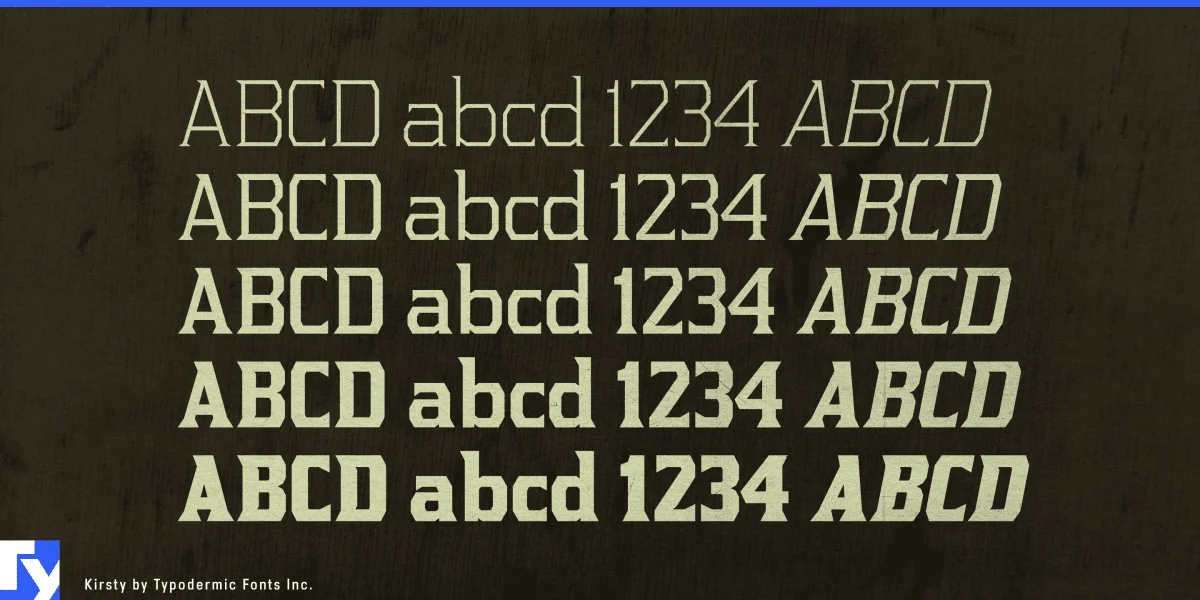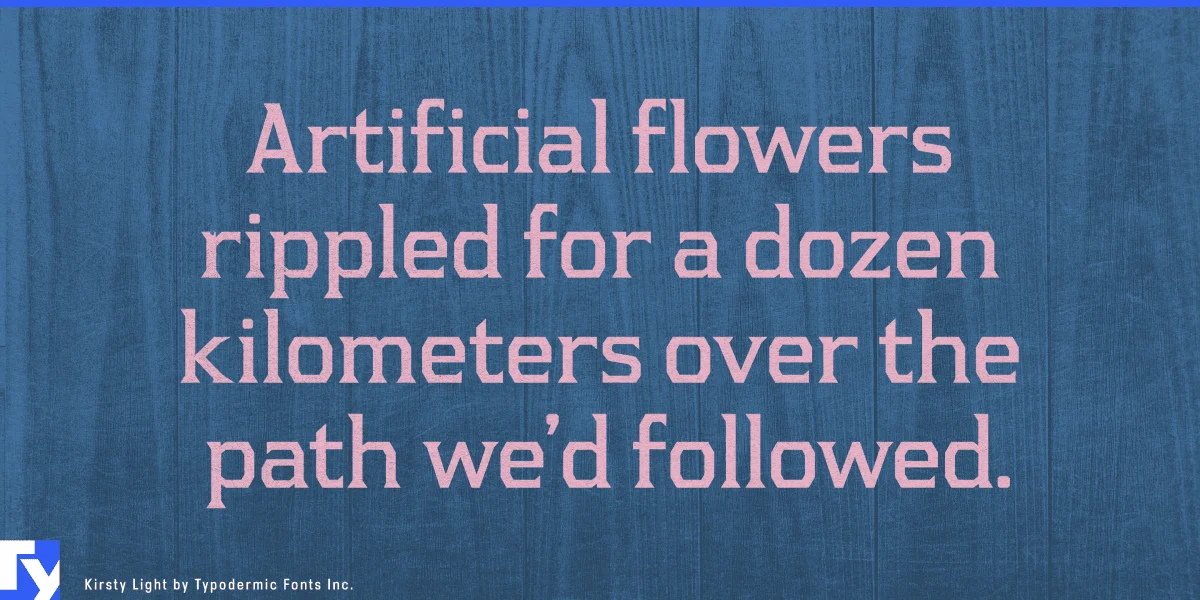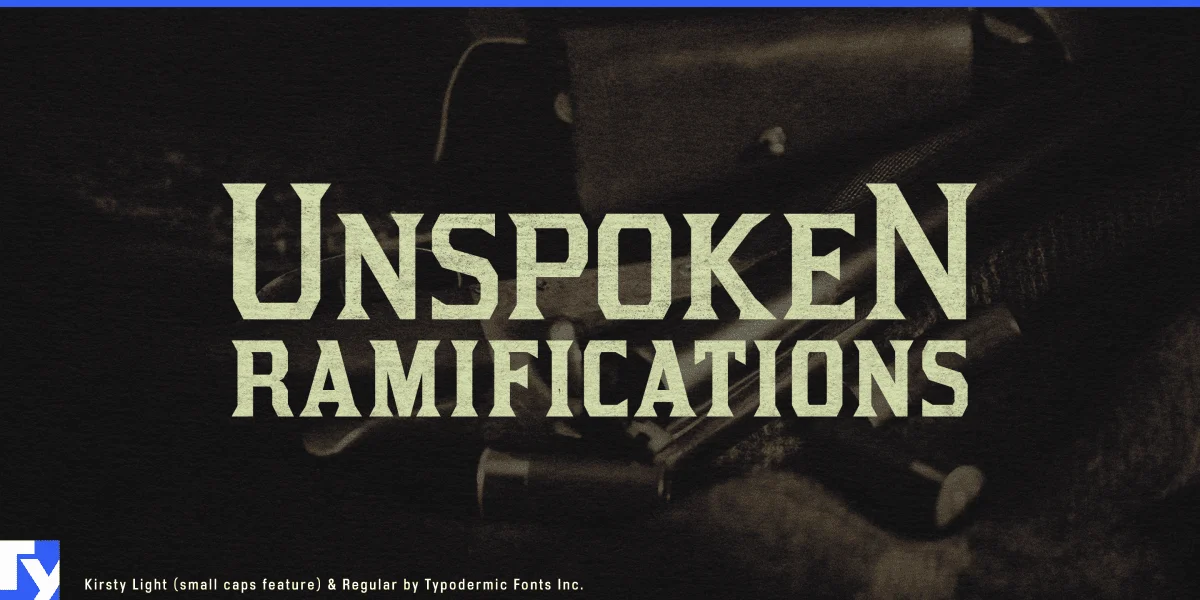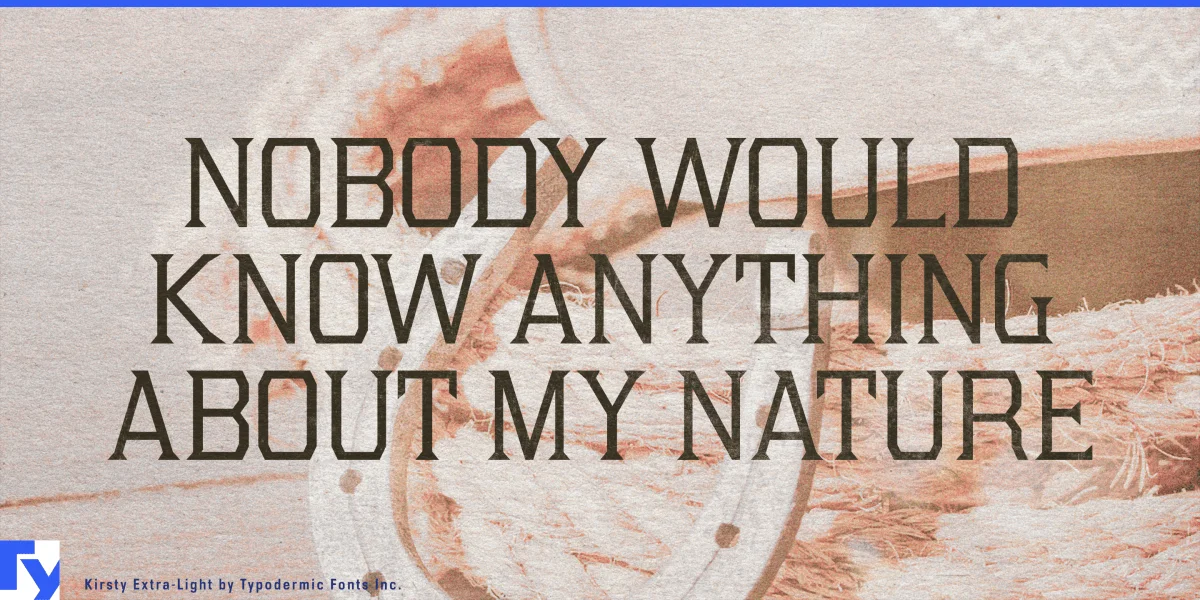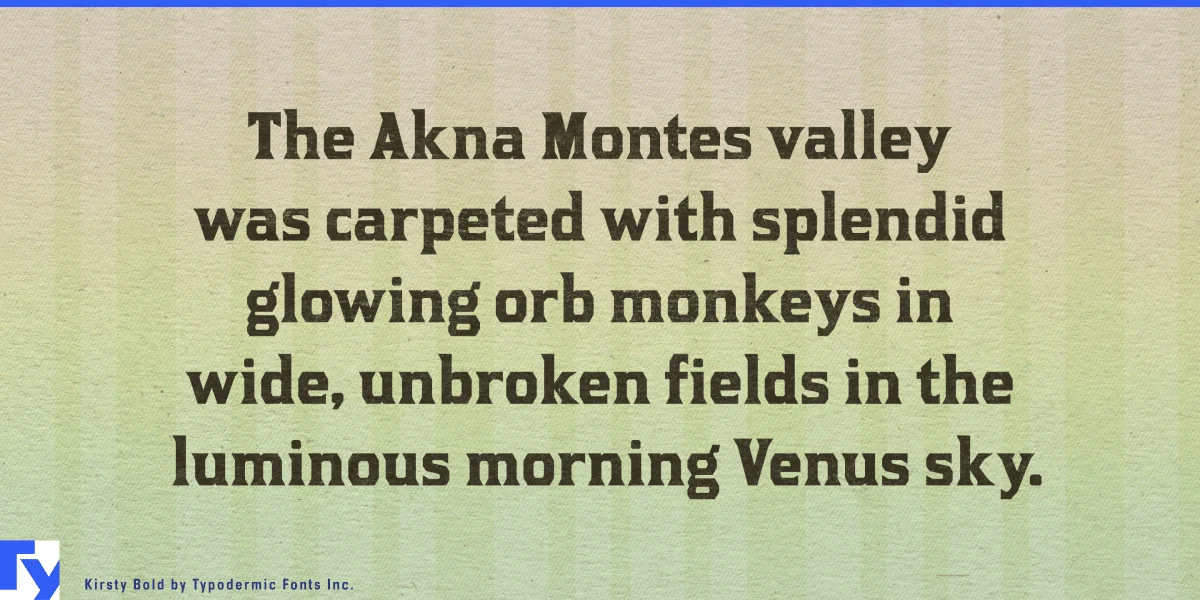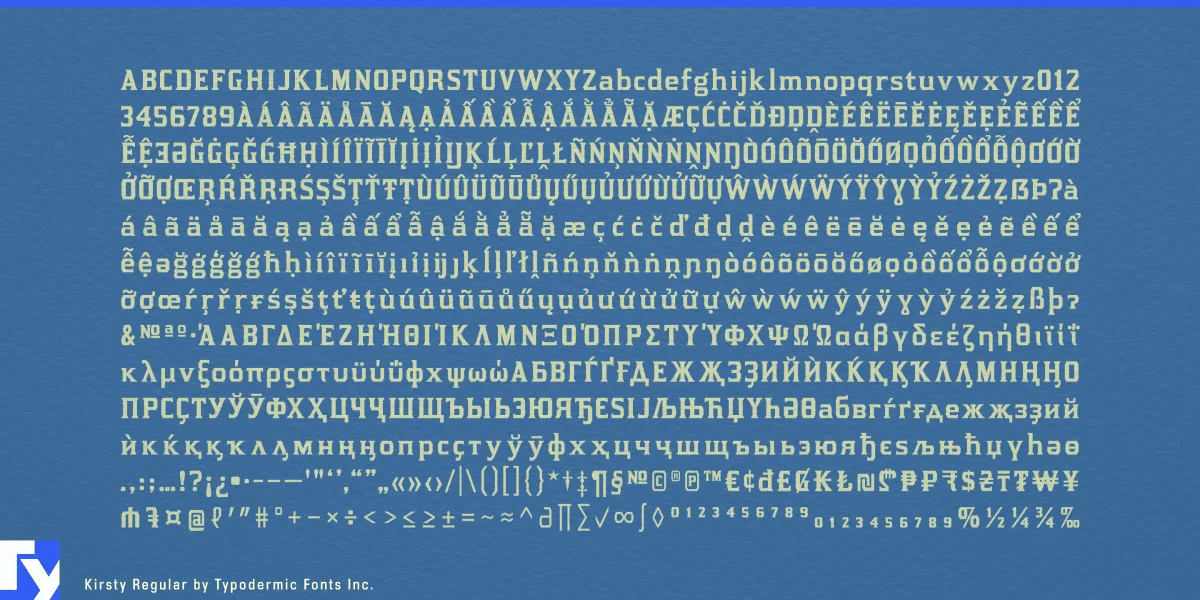
Step aboard the Kirsty Express—a typeface that chugs along the tracks of history while steaming full speed into the future. This isn’t just a font; it’s a time machine disguised as letterforms, whisking you back to the golden age of railroads with every curve and angle.
Kirsty’s DNA is steeped in the robust, no-nonsense lettering of 19th-century locomotives. Its sharp, Latin-serif design and distinctive octagonal shape evoke the grit and glory of vintage railroad signage, reimagined for the modern era. Released in 2000, Kirsty quickly became the go-to typeface for designers looking to infuse their work with a dash of industrial romance. But Kirsty isn’t content to simply mimic the past. It’s a masterful blend of nostalgia and innovation, equally at home in steampunk fantasies and dieselpunk dystopias. Picture it adorning the side of a brass-plated airship, or gracing the control panel of an alternate-history war machine. Kirsty doesn’t just complement these aesthetics—it amplifies them, adding an extra layer of authenticity to any retro-futuristic design.
Now boasting a proper lowercase, five weights, and obliques, Kirsty is more versatile than a Swiss Army knife. Its sleek, angular lines command attention in headlines and logos, while the small caps add a touch of Victorian elegance to body text. Just remember, not all languages support small caps, so check the glyph set before you start designing your next steam-powered novel. Kirsty’s linguistic reach is as expansive as a transcontinental railway. It supports most Latin-based European languages, ventures into the Cyrillic territories, explores the Greek isles, and even makes a stop in Vietnam. From the fjords of Norway to the steppes of Kazakhstan, Kirsty speaks the language of your audience with industrial-strength clarity.
Ready to coal-fire your designs with some vintage vigor? All aboard the Kirsty Express. Whether you’re crafting a Neo-Victorian brand identity or designing signage for an imaginary diesel-punk metropolis, Kirsty delivers your message with the power and precision of a well-oiled locomotive.